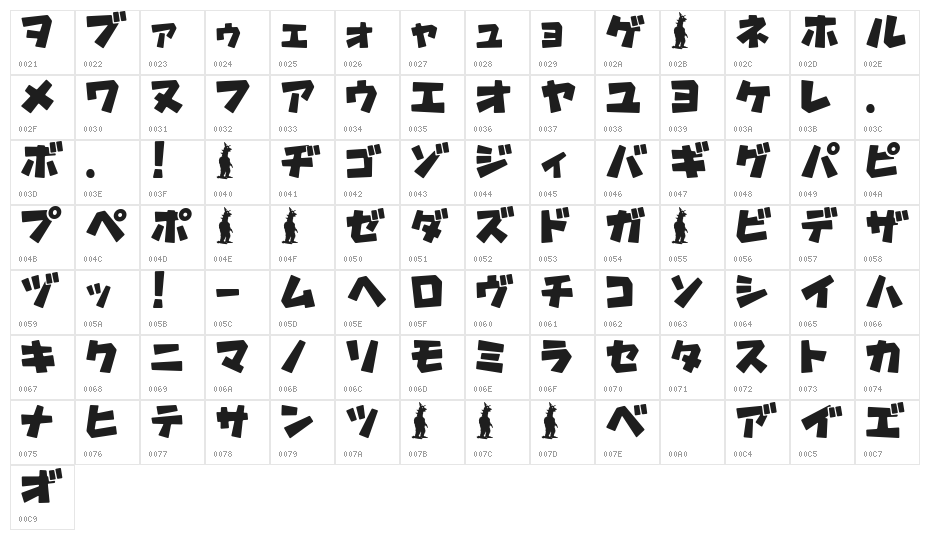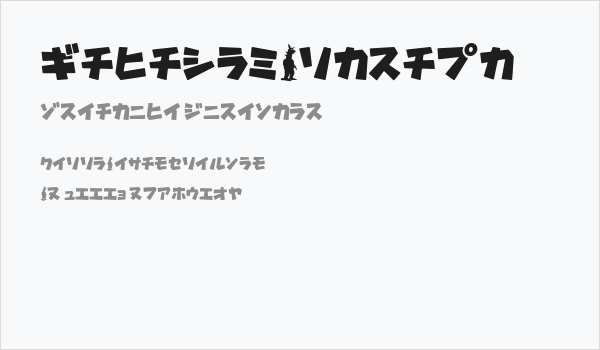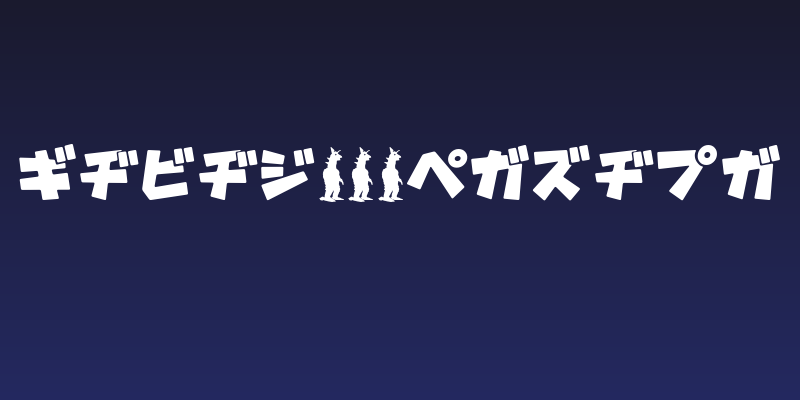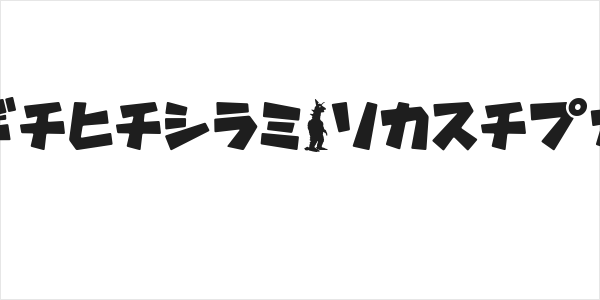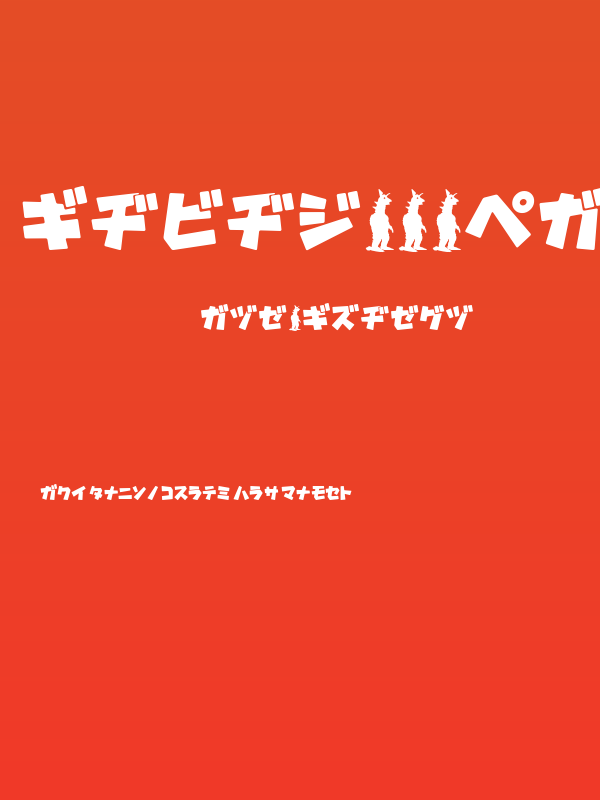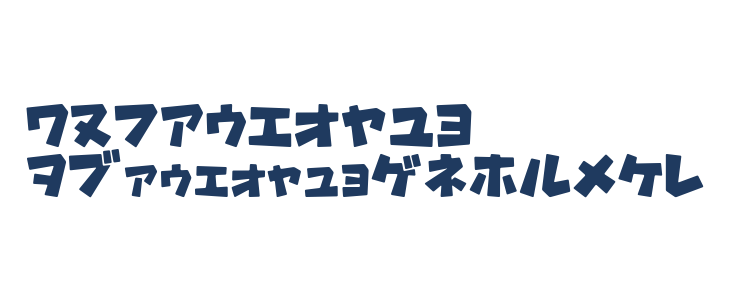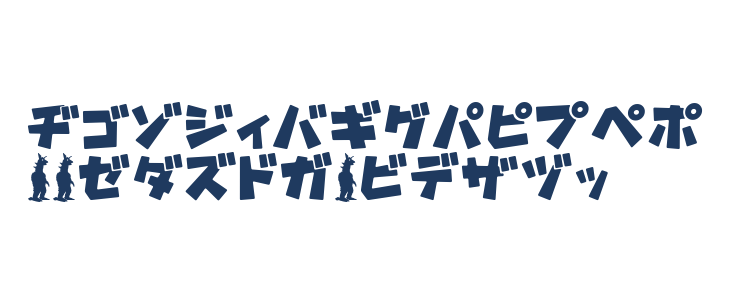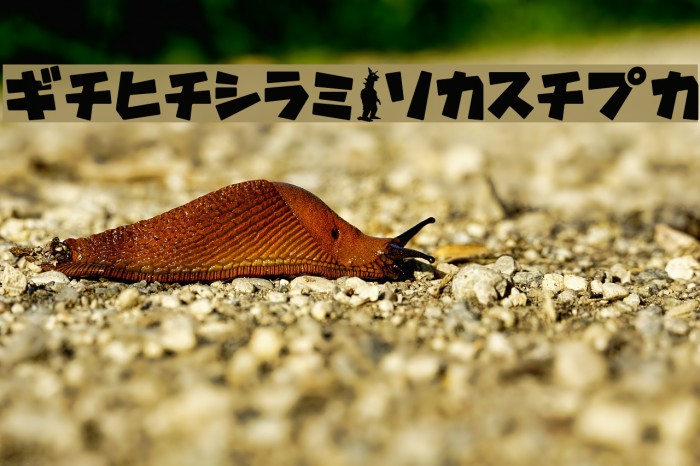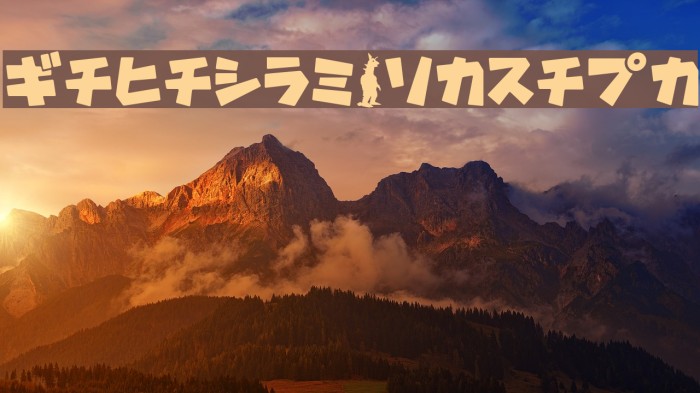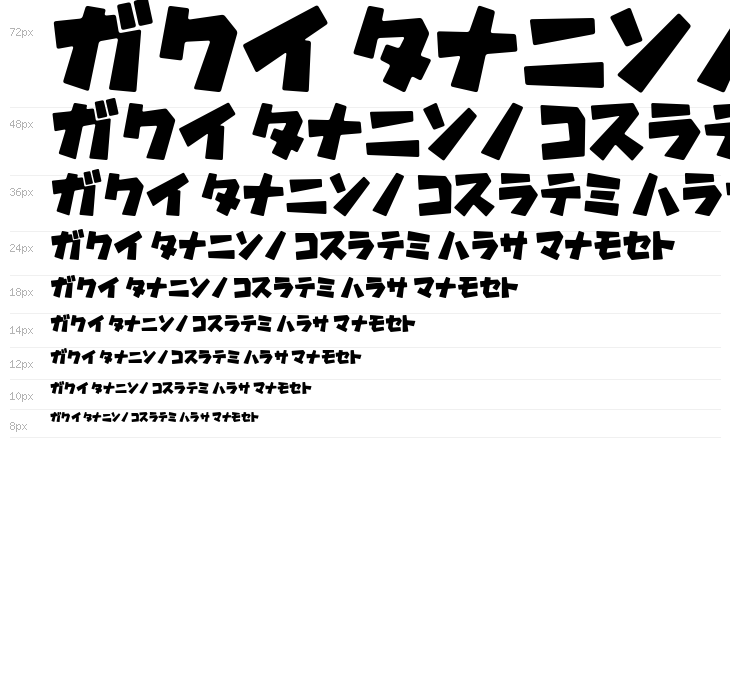
GavadonUltraKt Font
GavadonUltraKt Description
This font features bold, angular characters with a playful and dynamic style. The letters are heavily stylized, with exaggerated curves and sharp edges that give them a unique, cartoonish appearance. The font is highly decorative, making it ideal for attention-grabbing headlines or creative projects. The boldness of the characters ensures high visibility, while the quirky design adds a sense of fun and whimsy. The overall look is modern and distinctive, with a strong visual impact that is sure to stand out.
| Overall Style | Modern, Decorative |
| Proposed Projects | Ideal for comic book titles, children's book covers, playful branding, and creative posters. |